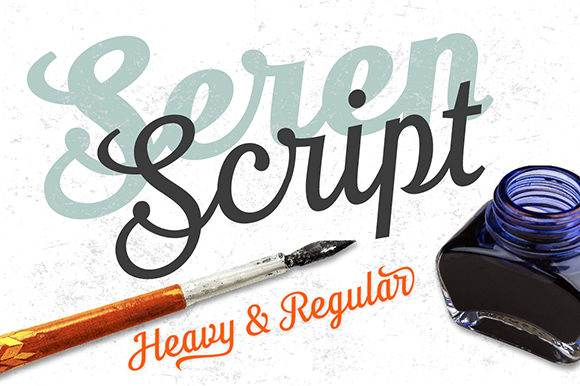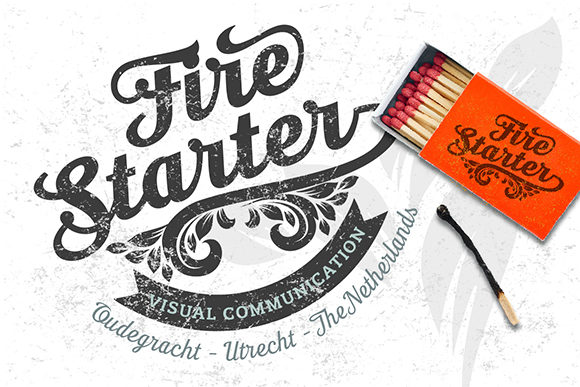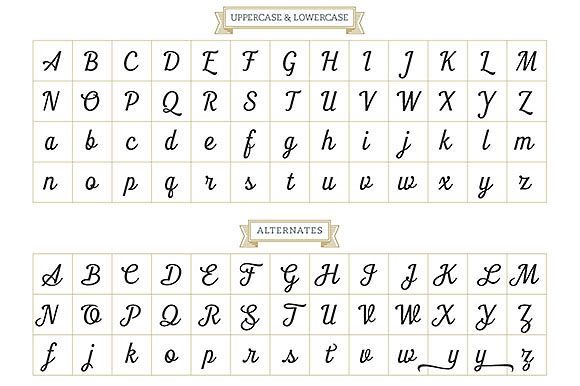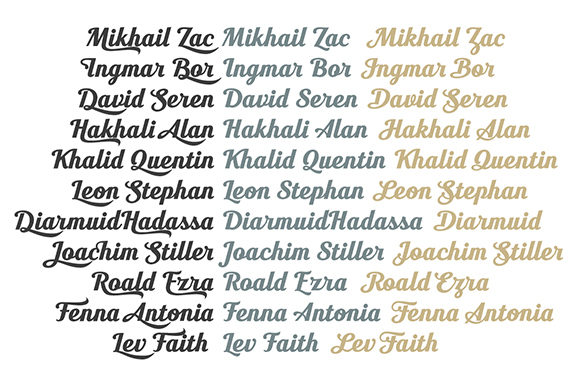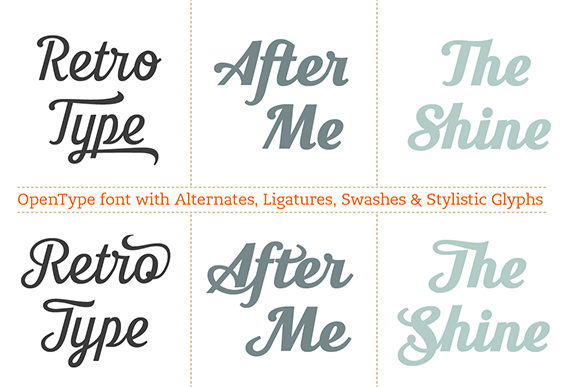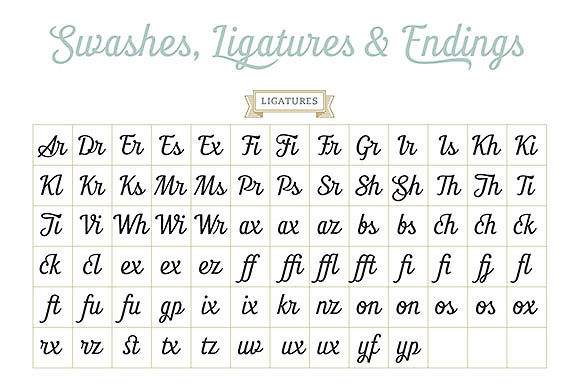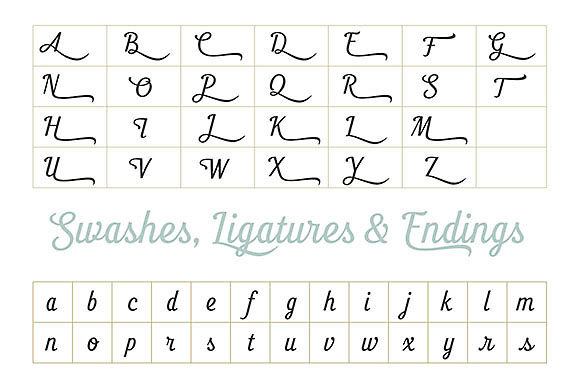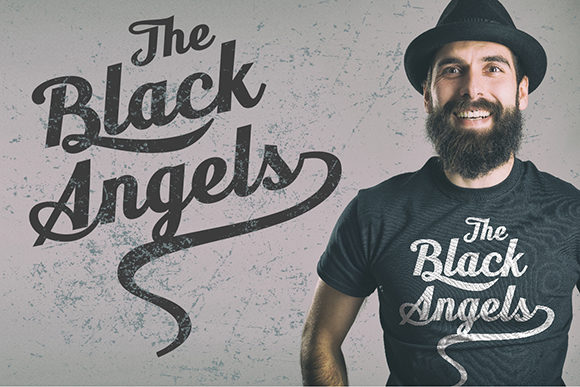
Seren Font
About Seren Font
Seren is a retro font that contains 430 beautiful glyphs. It’s the perfect font for adding a vintage twist to your design!